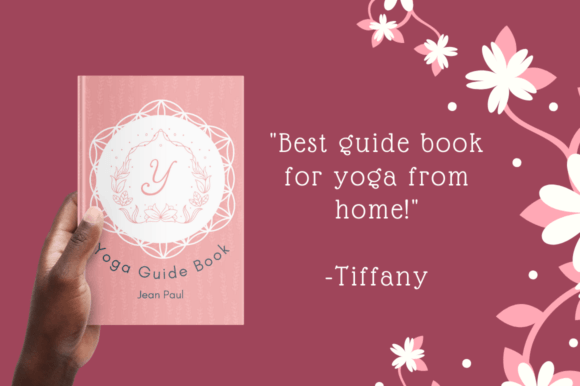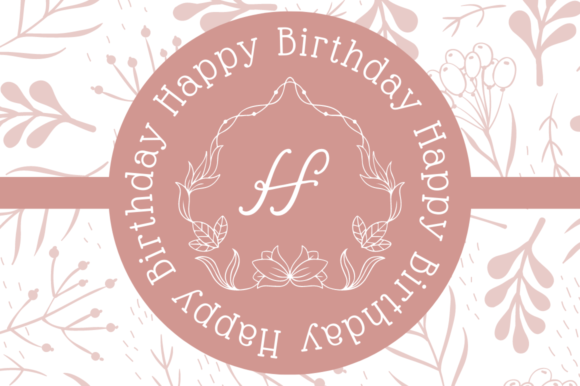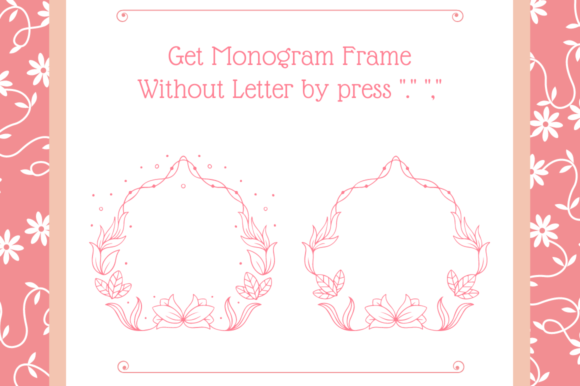
Introduction to Rimana Monogram Font
Rimana Monogram is a beautiful flower decorative font.
Fall in love with it and use it on your special occasion creations, business designs, logos, branding, social media posts, and wedding cards .
Key Features of Rimana Monogram Font